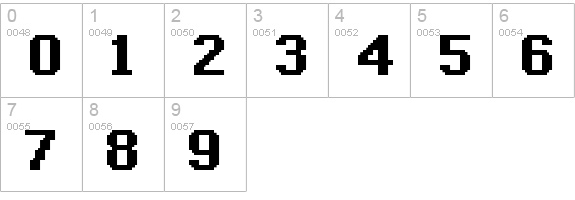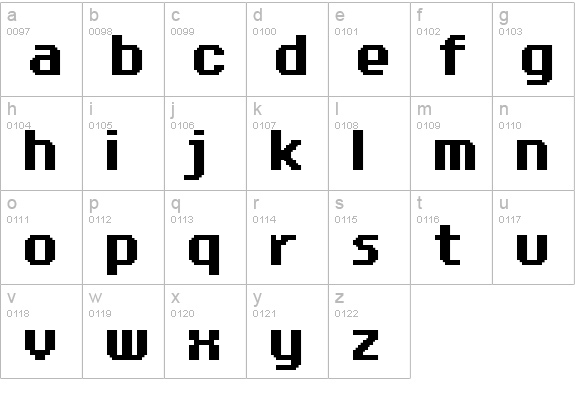
FFF Protege Bold is a strong, high-contrast variant in the FFF typeface family \xE2\x80\x94 well suited to headlines, attention-grabbing titles, and strong calls-to-action.
FFF Protege Bold is a dynamic and eye-catching font that exudes confidence and modernity. With its bold and sleek design, this font is perfect for making a statement in headlines, titles, and branding projects. The strong and prominent letterforms of FFF Protege Bold command attention, while still maintaining a sense of sophistication. What makes FFF Protege Bold even more appealing is that it is available for free download at FontsMarket.com. This means that you can easily access this striking font and incorporate it into your designs without any extra cost. Whether you're working on a poster, logo, or website, FFF Protege Bold will help you stand out and make a lasting impression. Embrace the boldness and creativity of FFF Protege Bold and elevate your design projects to the next level.